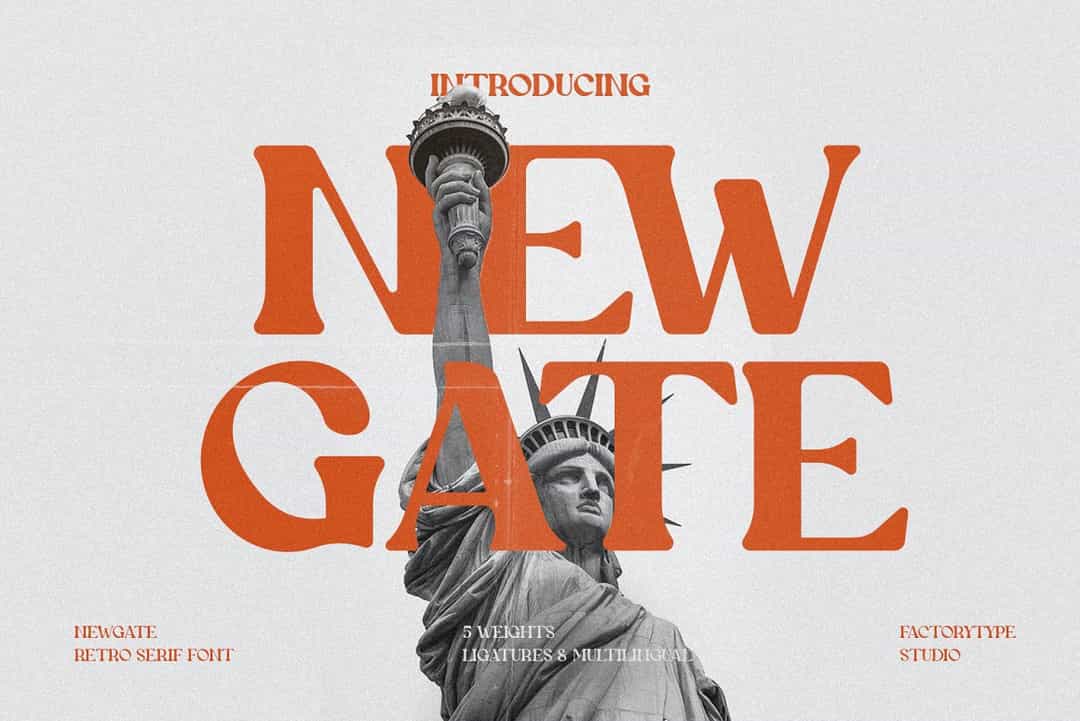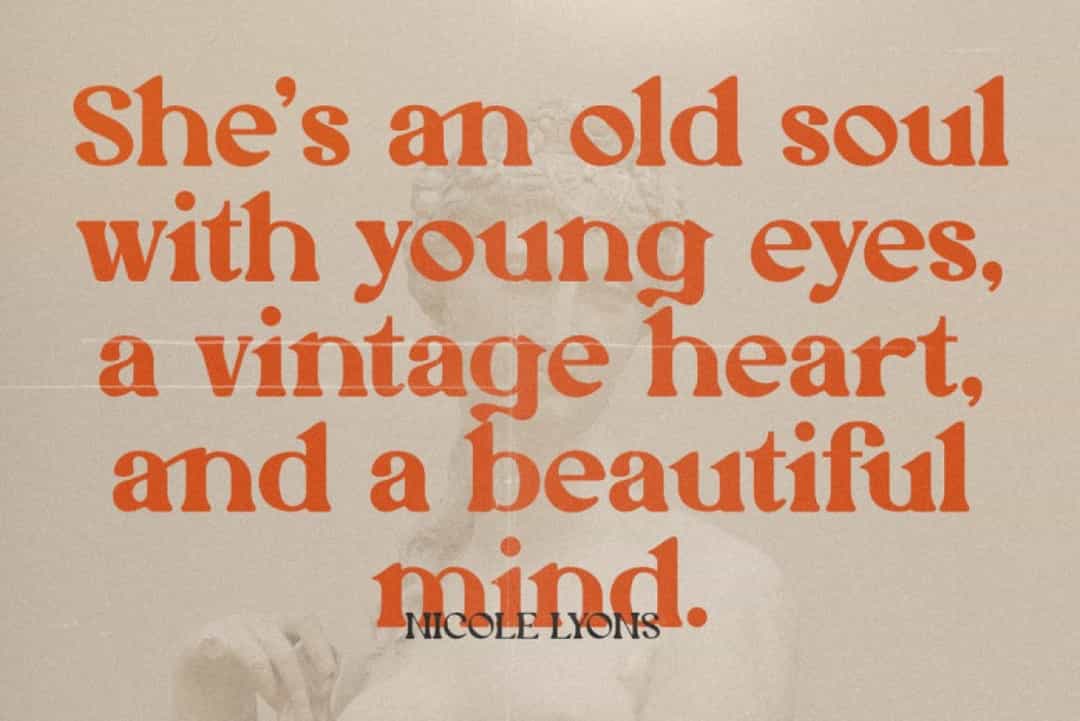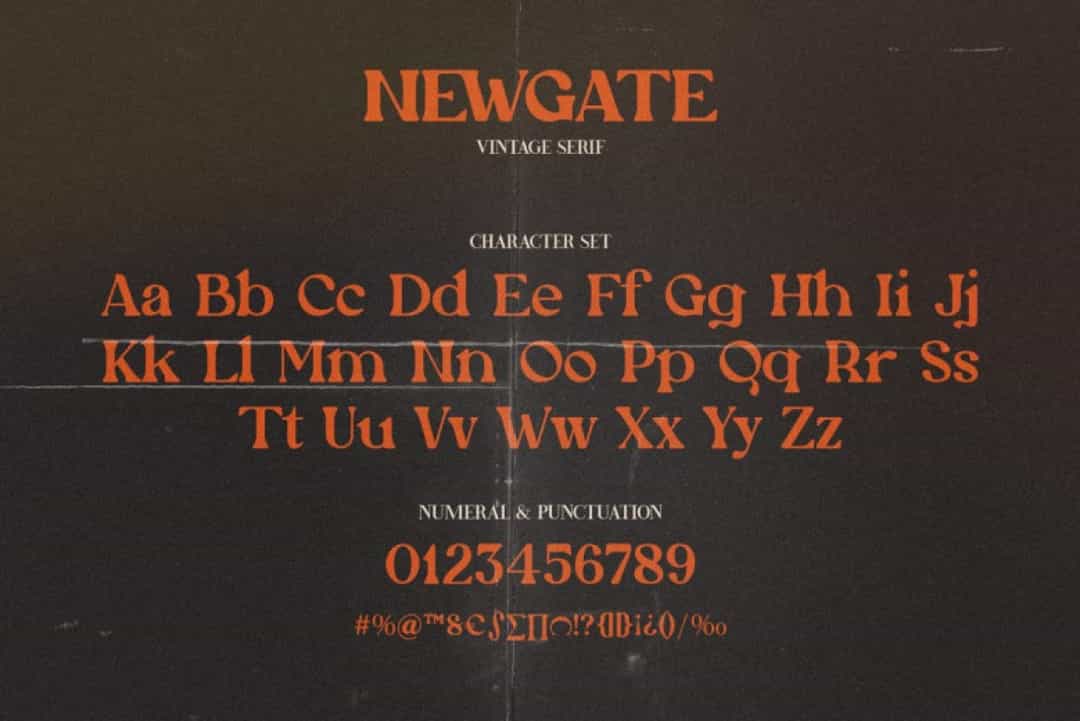
NEWGATE, an elegant retro font has just made its debut! Featuring thick curly lines that reflect its retro influence and serifs from years gone by, NEWGATE fits right in with vintage moodboards and logos perfectly.